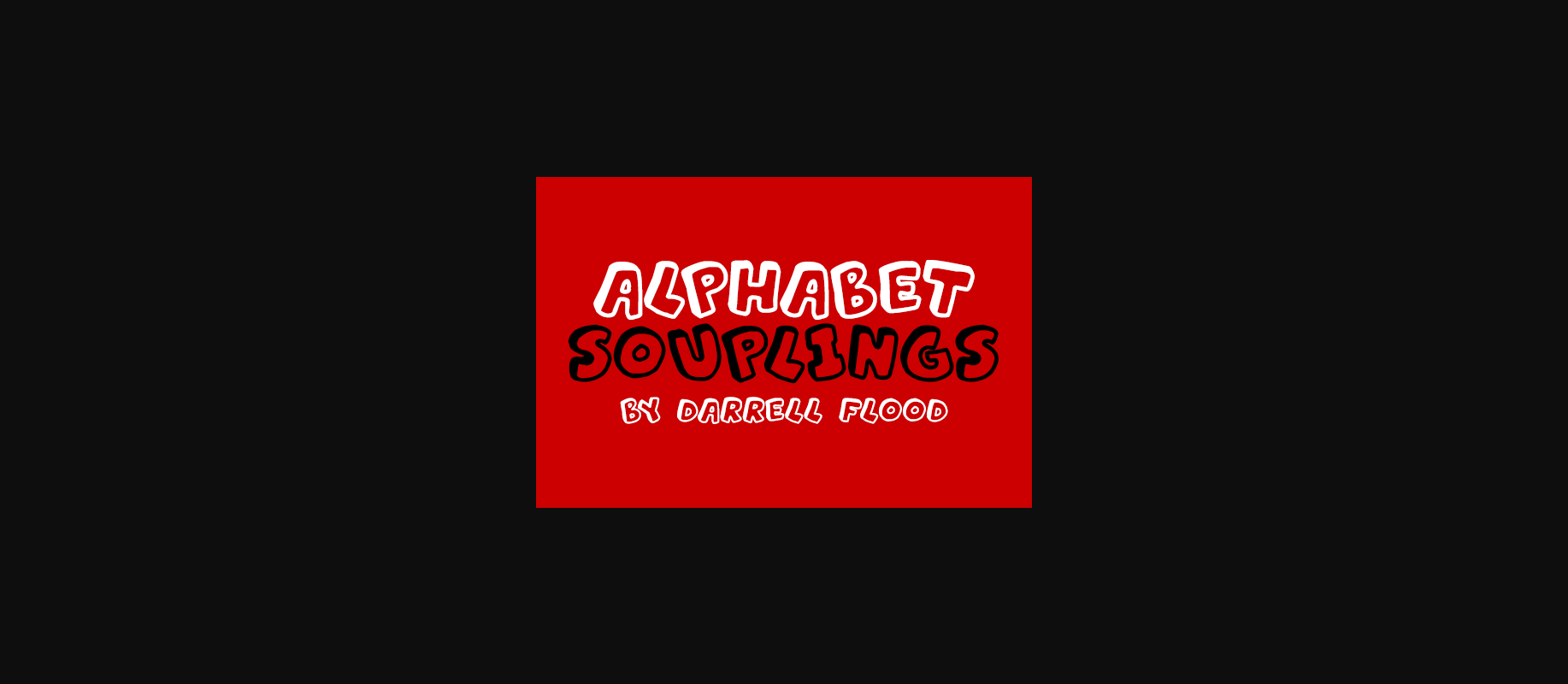
Alphabet Souplings Font
About Alphabet Souplings Font
A cute, fun font, with a three-dimensional aspect. Thick lines and soft edges combine to give a lighthearted feeling to this typeface.
Add Alphabet Souplings to your font collection and add a lighthearted appeal to your work.